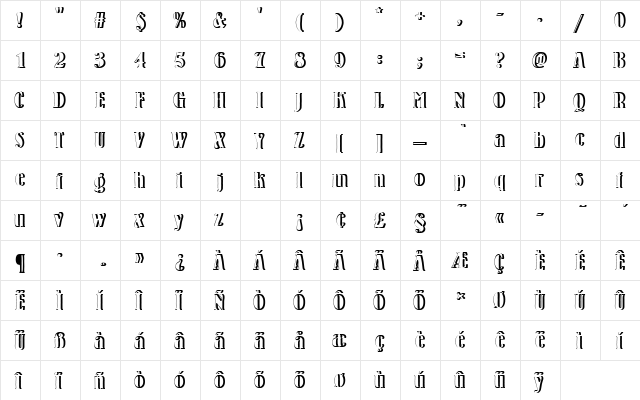
BernhardAntDBolConRe1 Regular
Design Context for BernhardAntDBolConRe1 Typeface
BernhardAntDBolConRe1 is a composed and adaptable typeface that performs quietly and consistently across a wide range of design contexts.